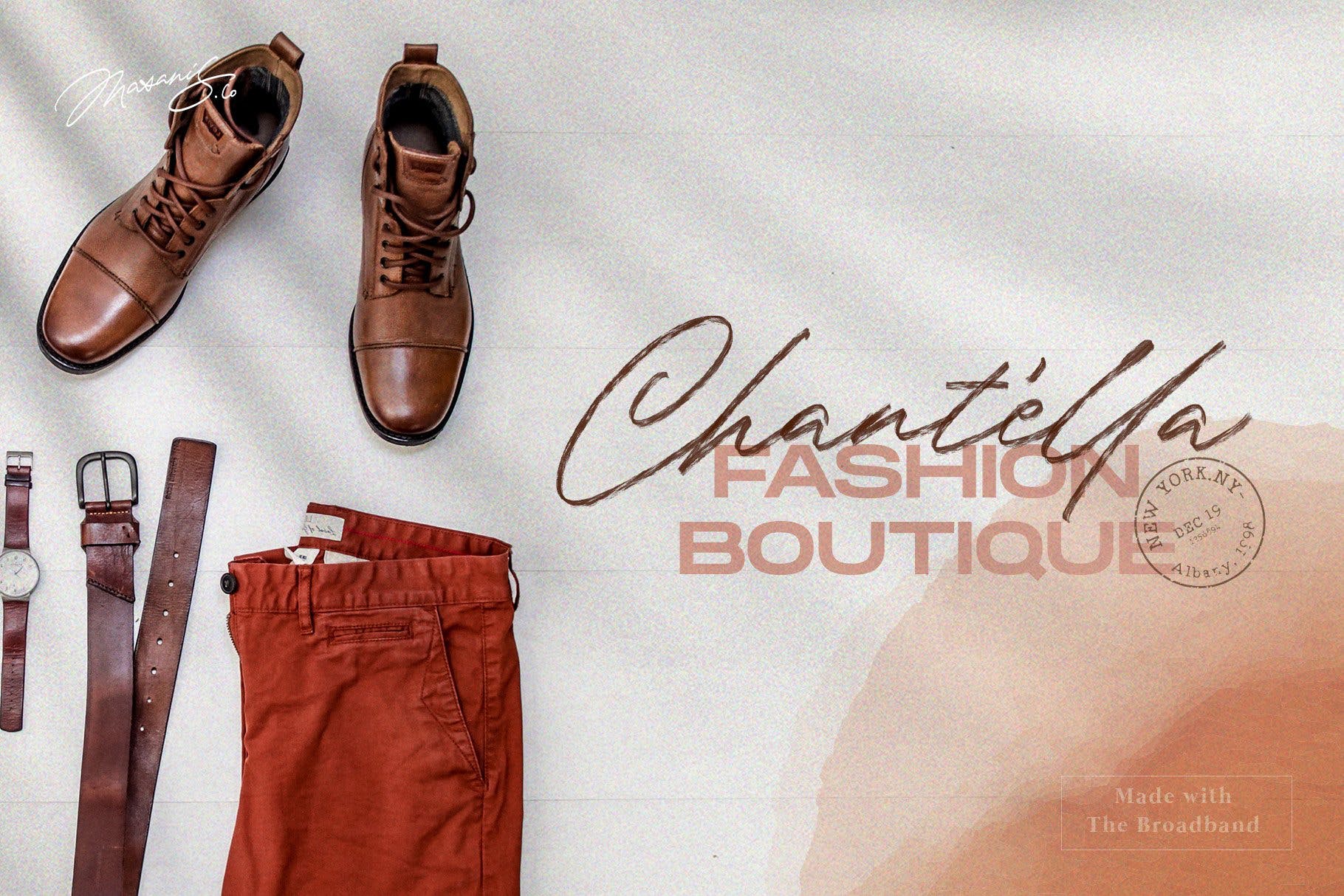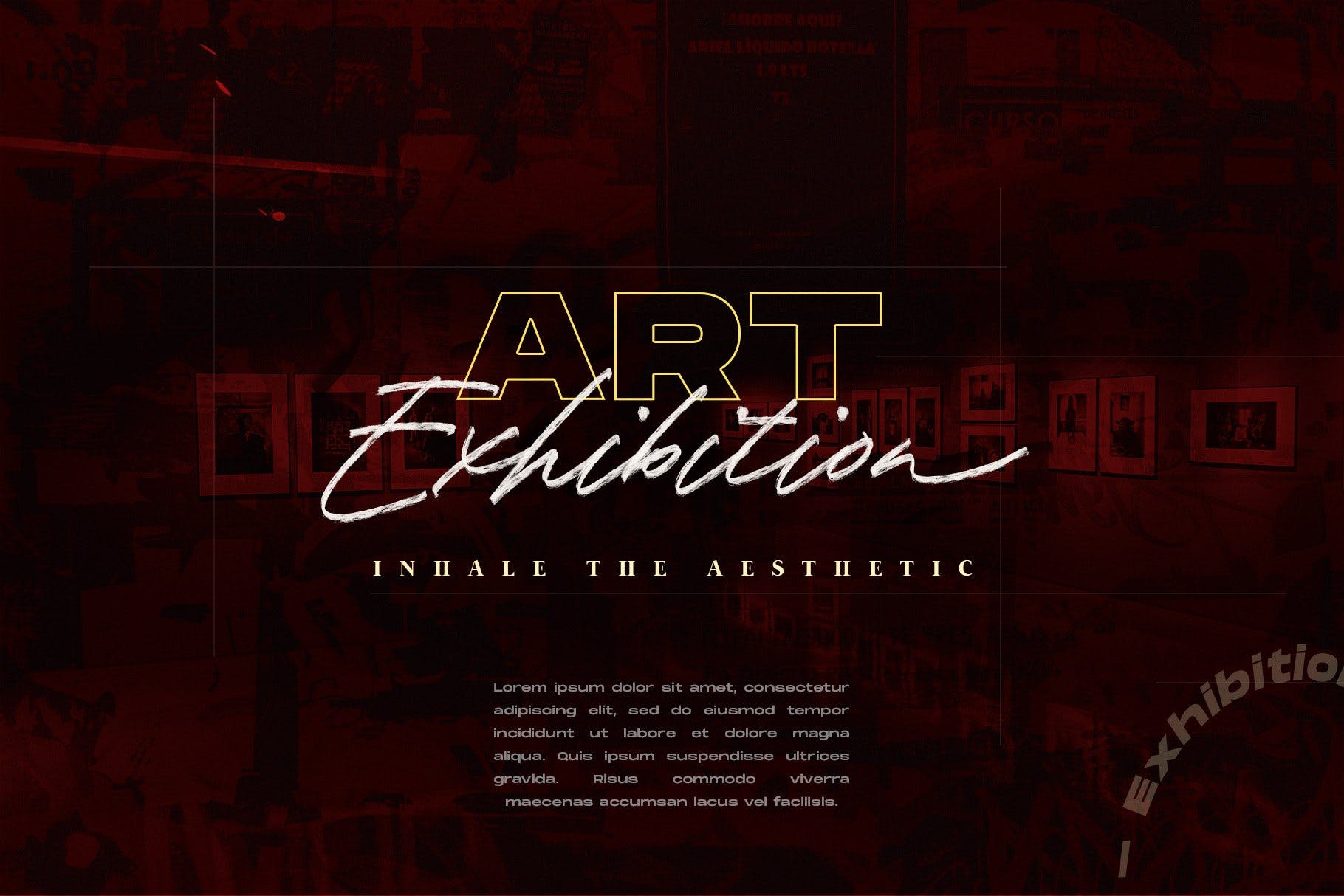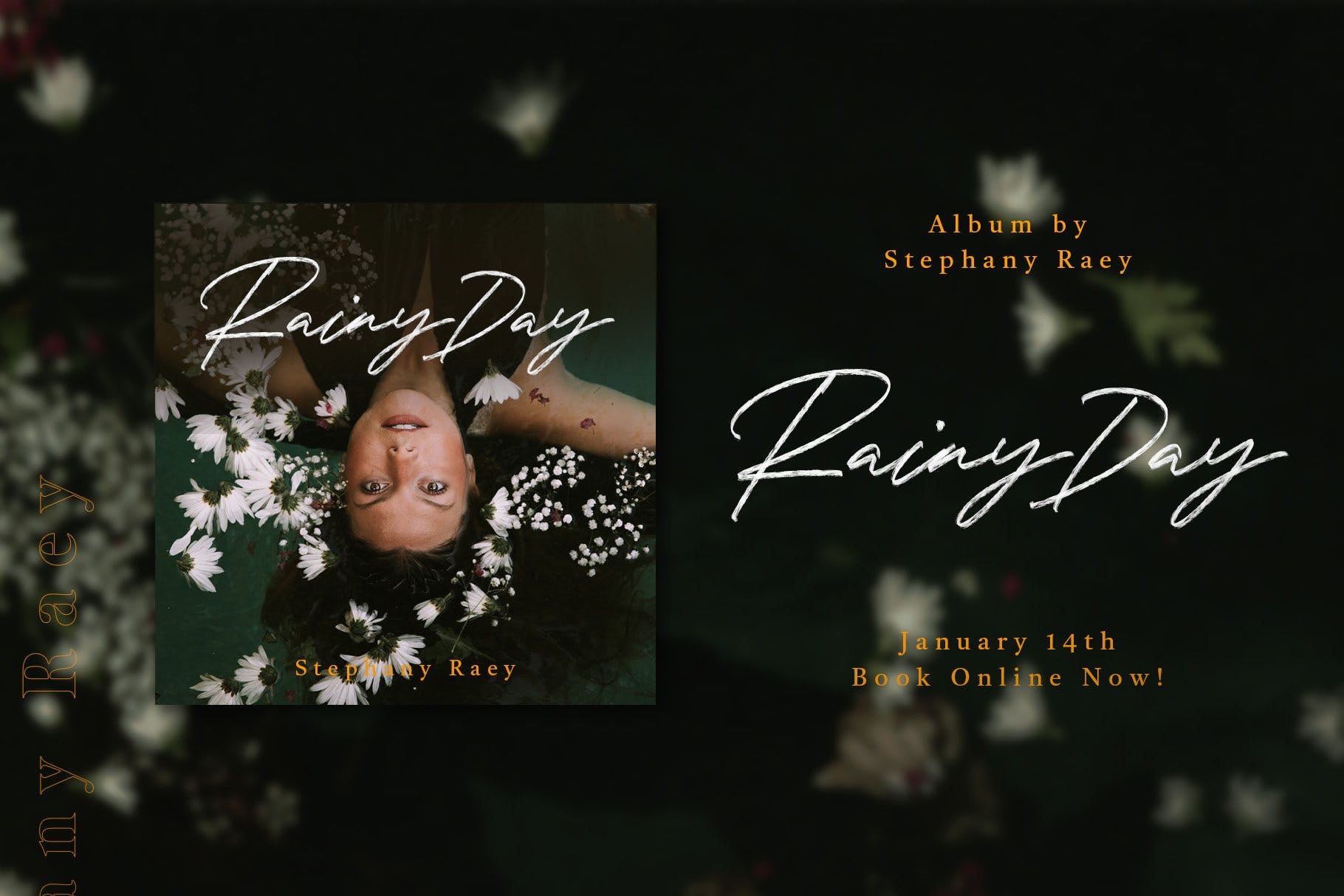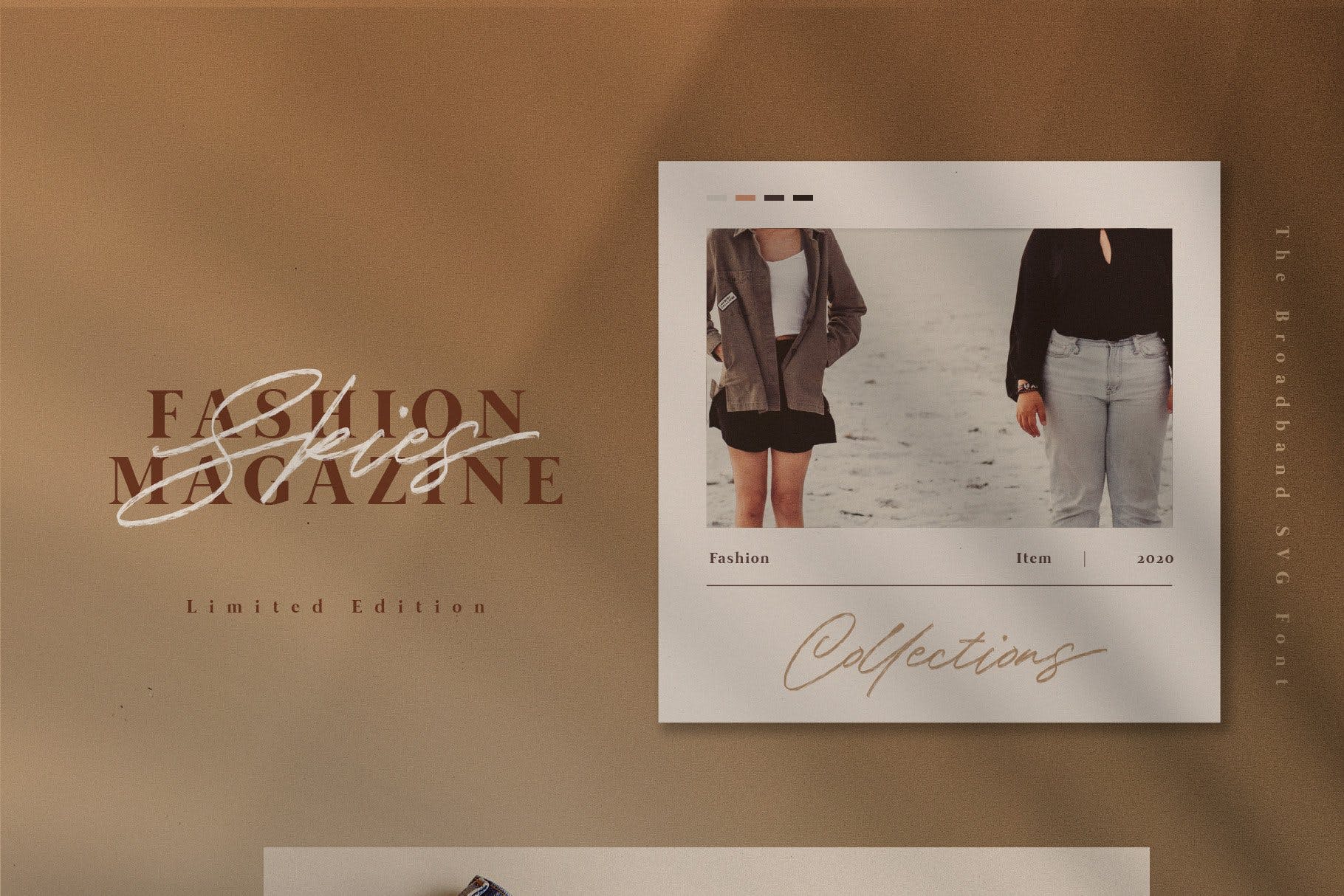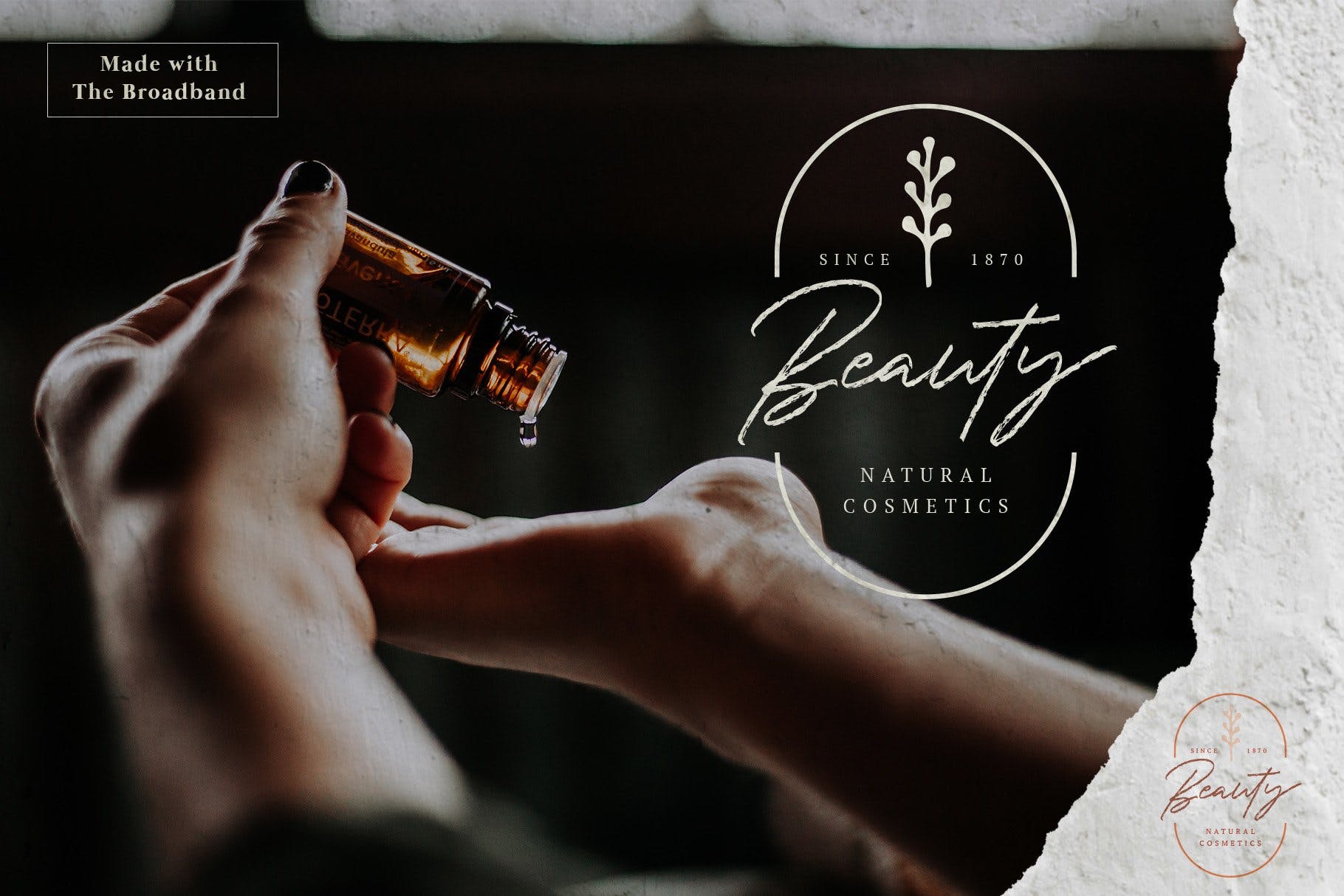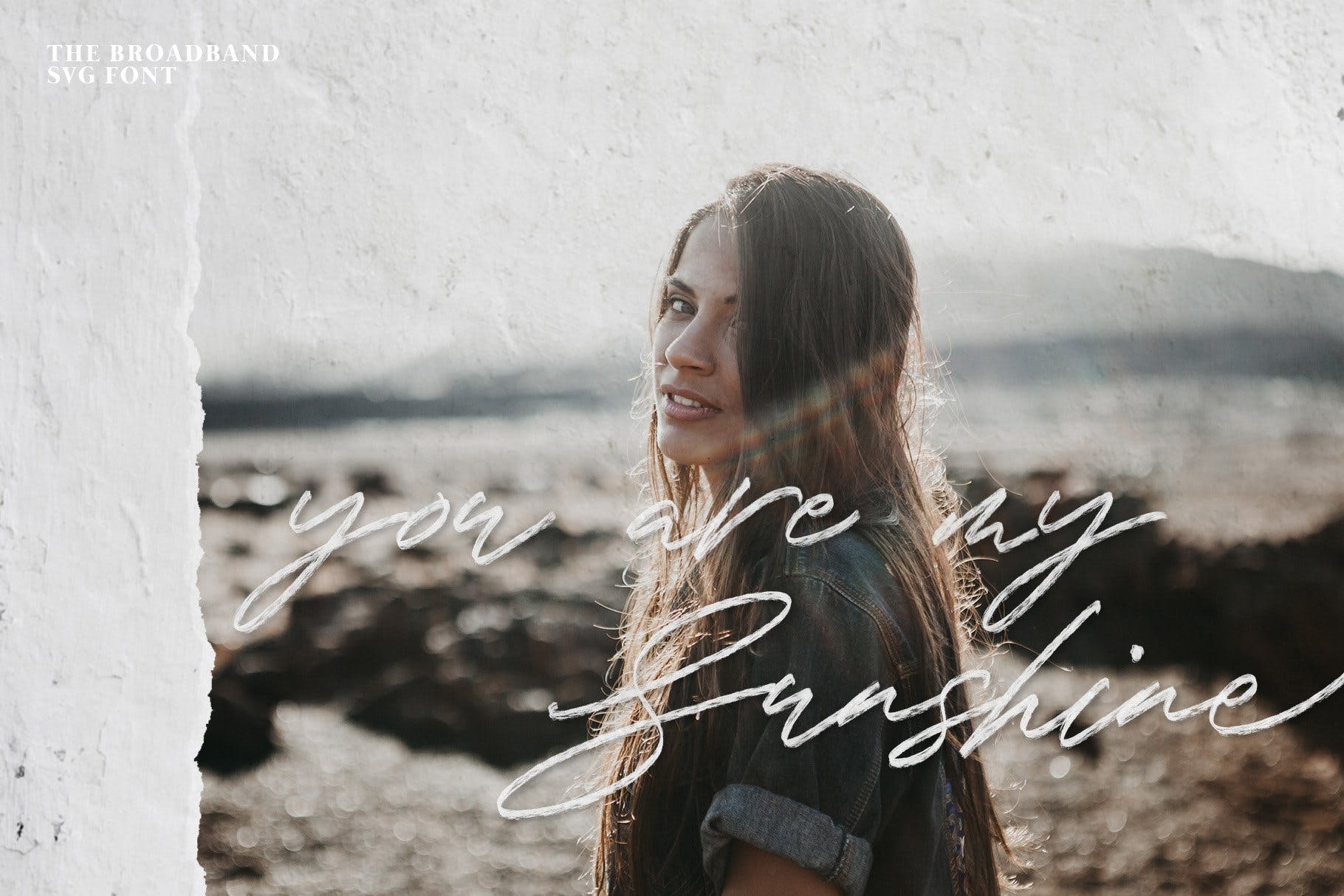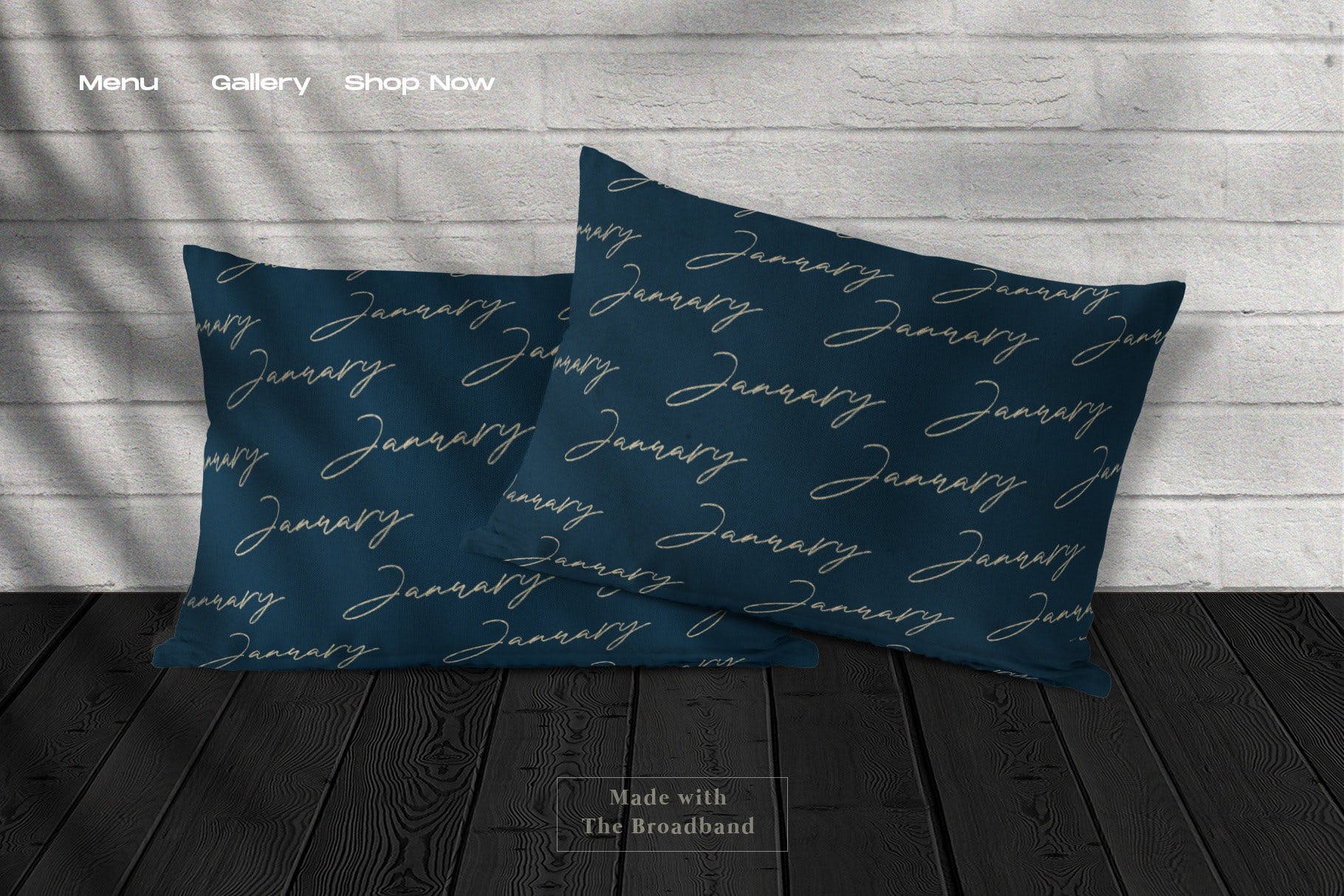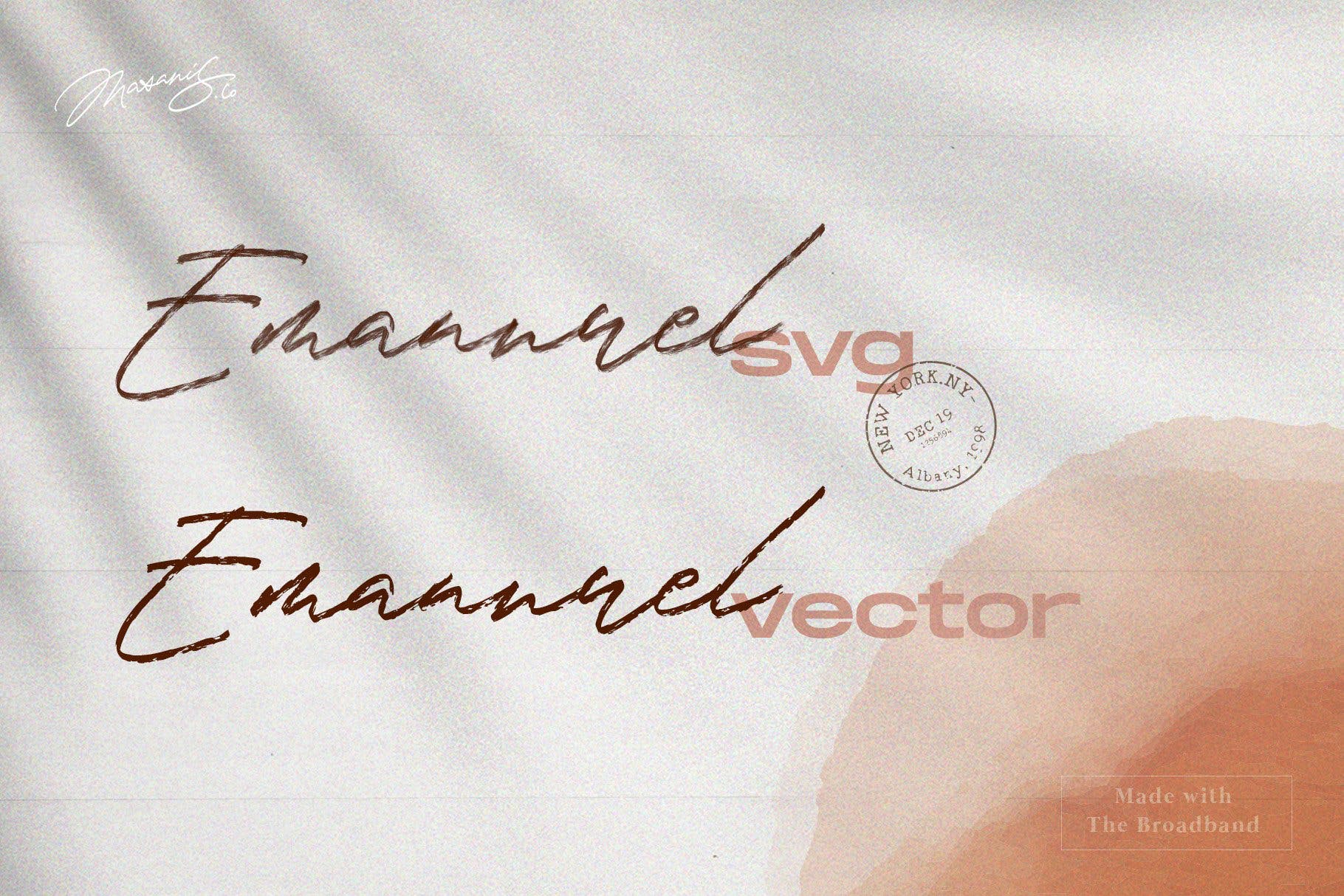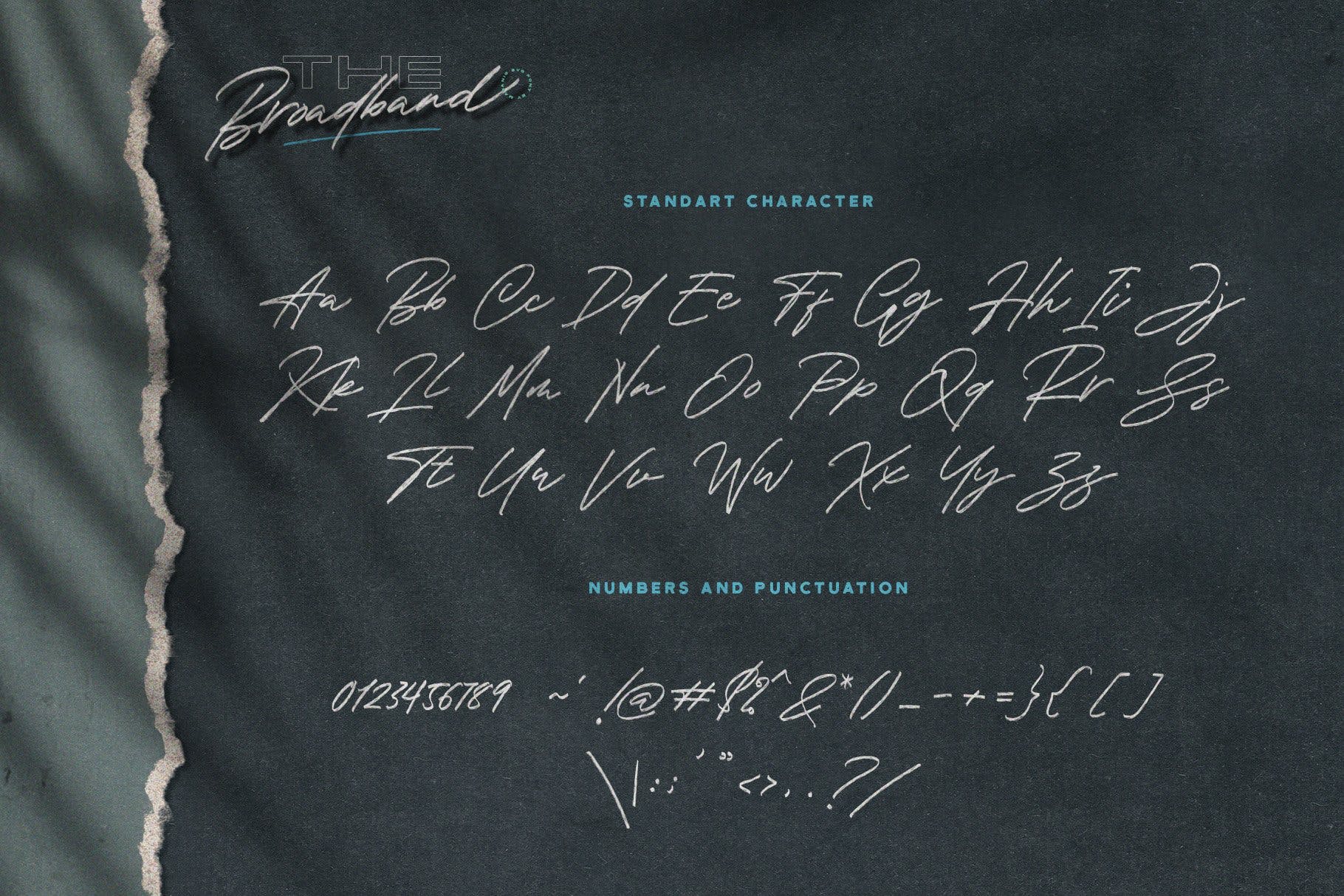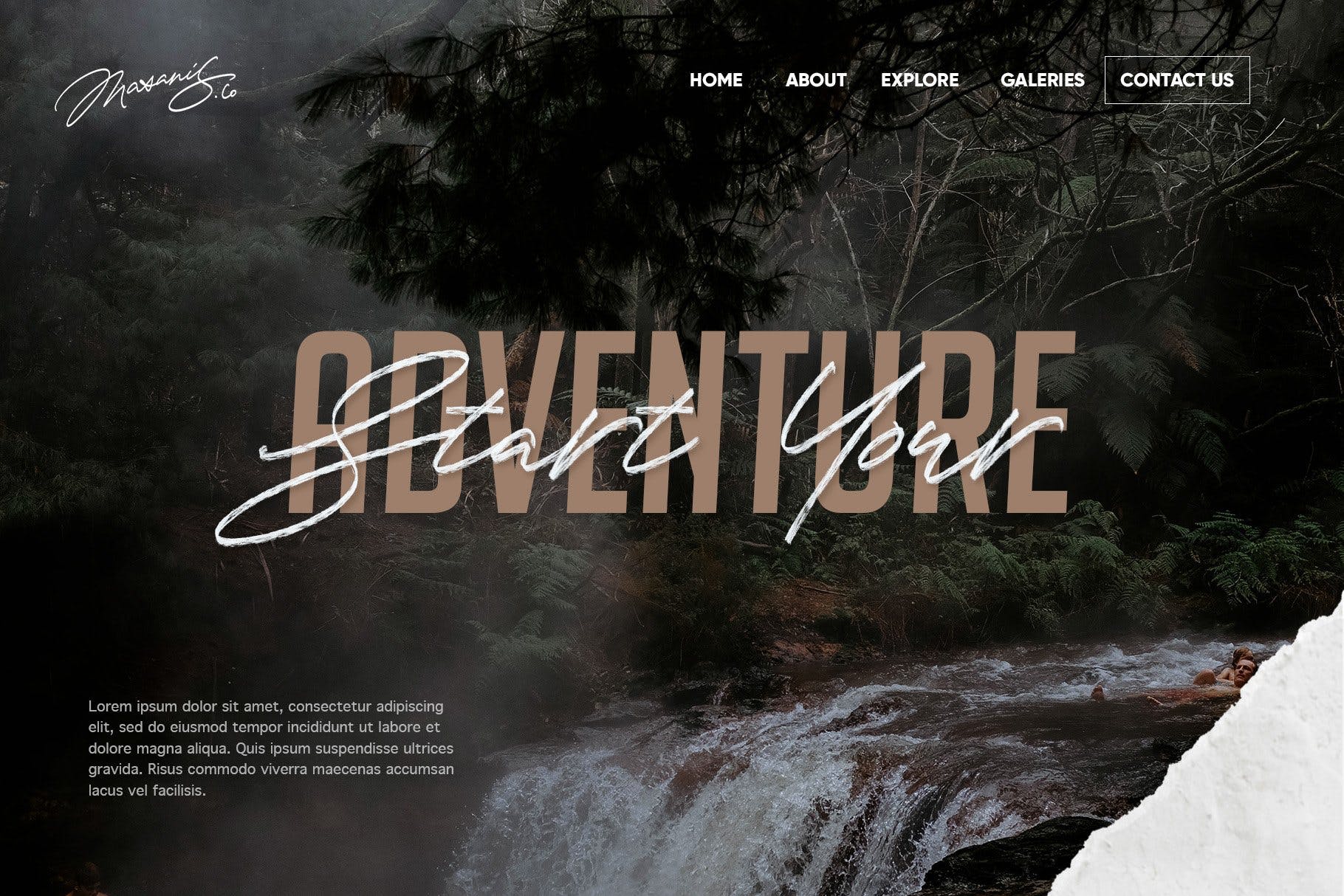
Free The Broadband Script Font
Free The Broadband Script Font is an awesome script display font. It is suitable for your projects such as flyers, magazines, book covers, event invitations, gift cards, and more. This free font is available for the TTF format file that you can install and use on your devices. However, this demo font is coming with a personal use license, but if you want to get more features for this font, you can get the premium version by clicking the Premium Button Below.